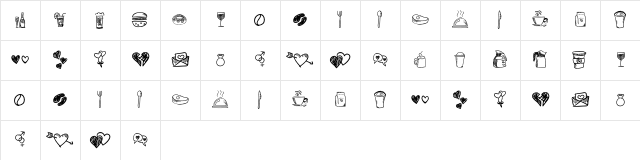
Complete Astrokids Doodle Regular glyph index. Displaying only characters natively supported by Astrokids Doodle Regular font.
Astrokids Doodle has an approachable, lighthearted character - its loose, expressive forms are well-suited to children's content, casual branding, and fun-first design.
Font Pairing: Pairs well with a rounded or humanist sans for body copy, maintaining the friendly tone without relying on Astrokids Doodle to carry extended reading.
Pro Tip: Use Astrokids Doodle at larger display sizes where its expressive character can land. Pair with a clean, simple sans for body copy to maintain readability.